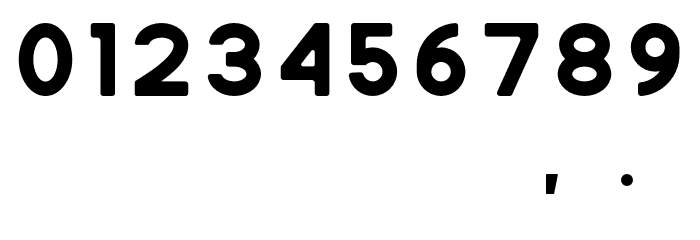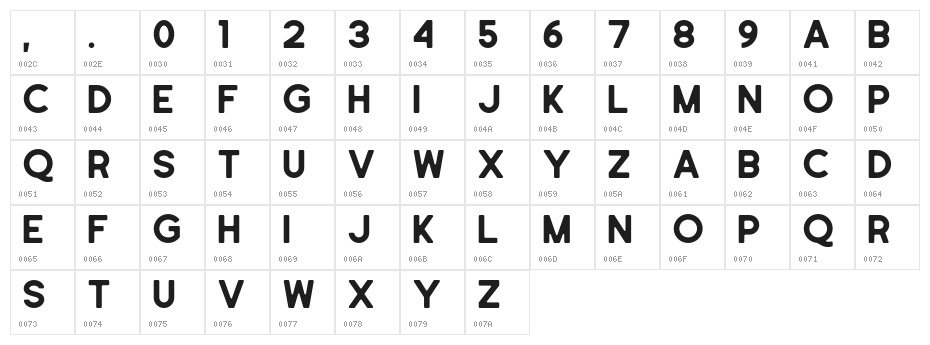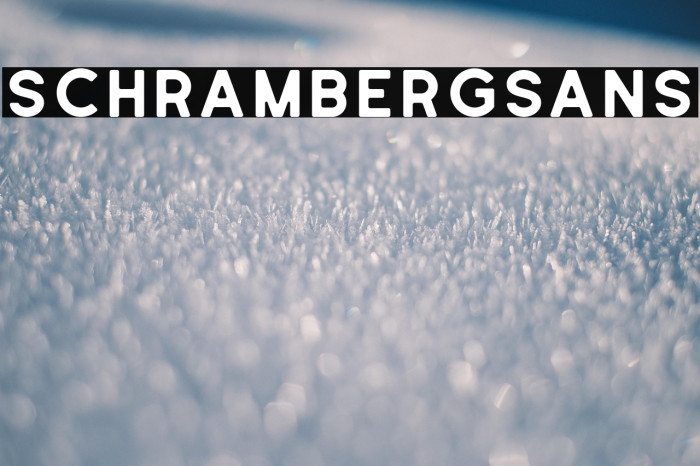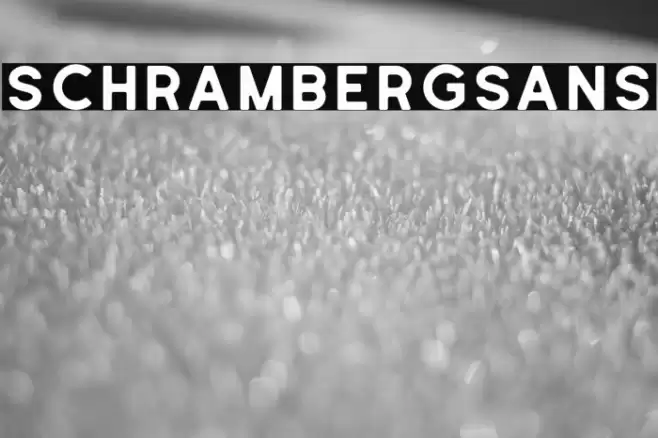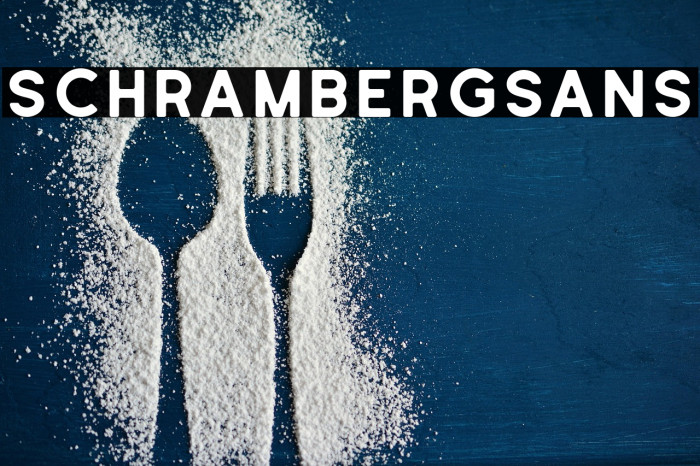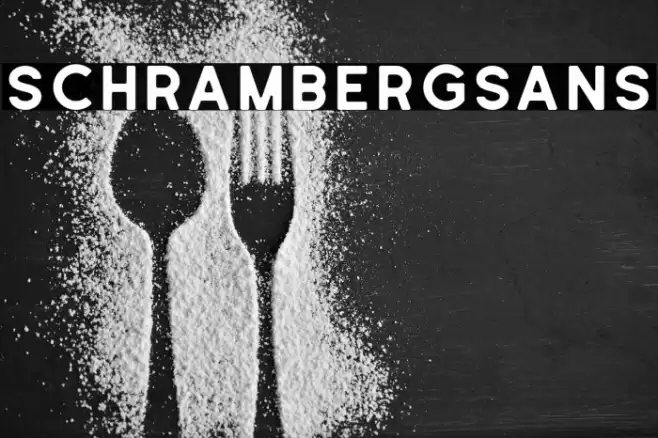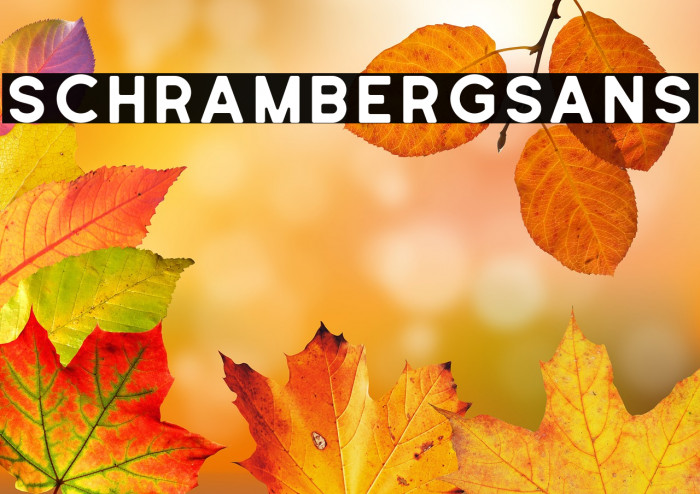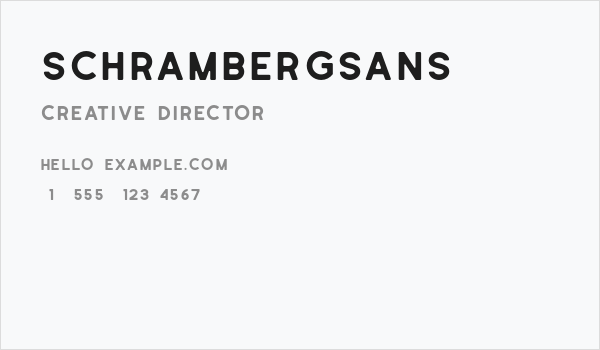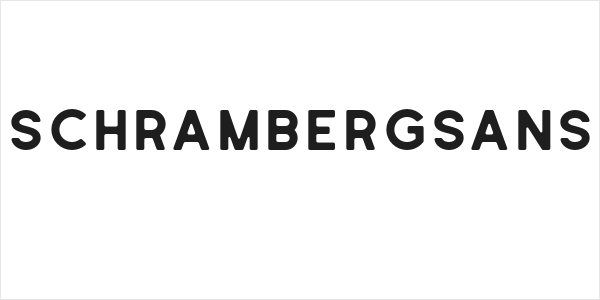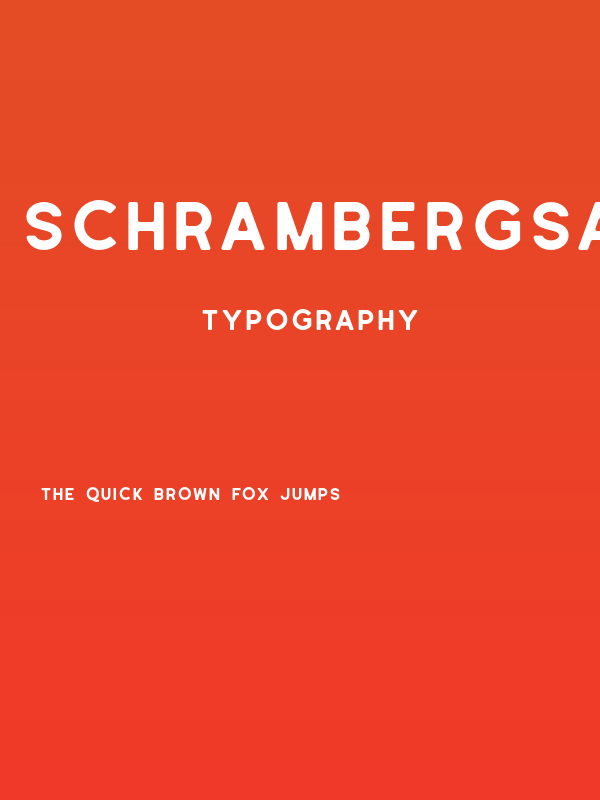
SchrambergSans Font
SchrambergSans Description
This font features a clean and modern sans-serif design with uniform stroke widths and a geometric structure. The characters are bold and well-defined, providing excellent readability. The uppercase letters are slightly taller than the lowercase, maintaining a consistent line weight throughout. The numerals are clear and distinct, matching the overall style of the alphabet. The punctuation marks are simple and unobtrusive, complementing the font's minimalist aesthetic.